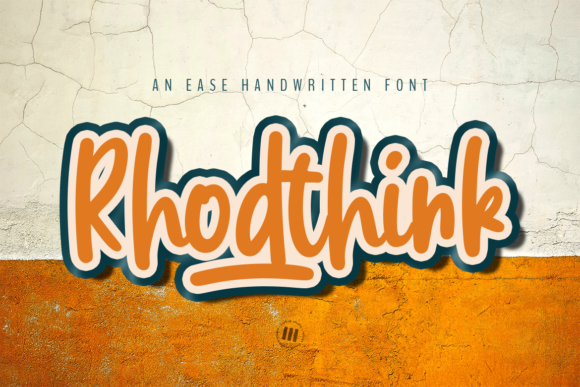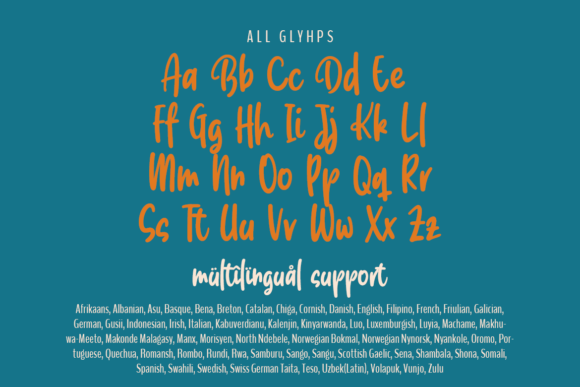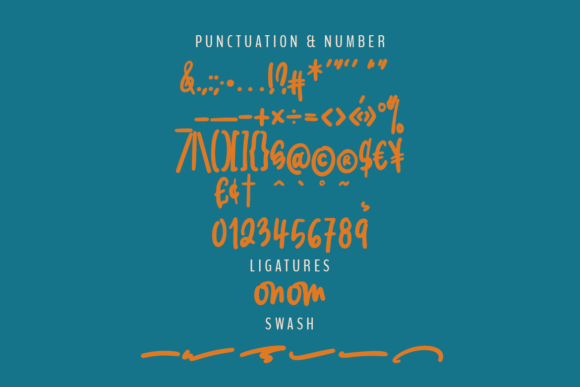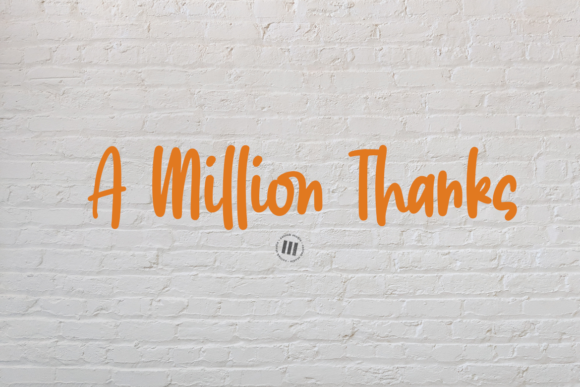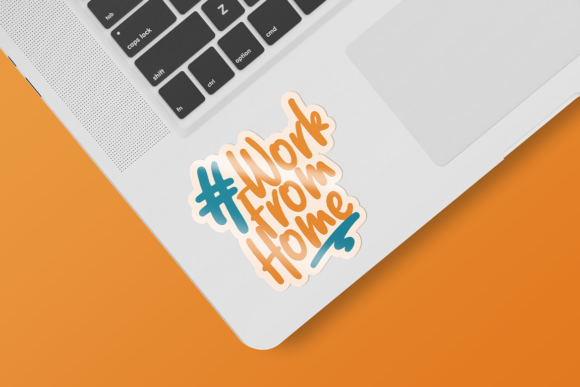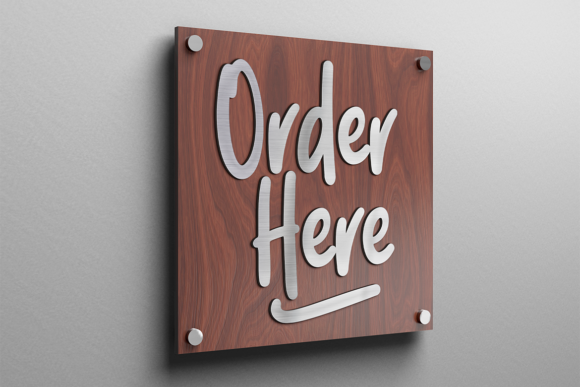
Rhodthink Font
About Rhodthink Font
Rhodthink is a cool, simple and relaxed handwritten font. Whatever the topic, this font will be a wonderful asset to your font library, as it has the potential to enhance any creation.